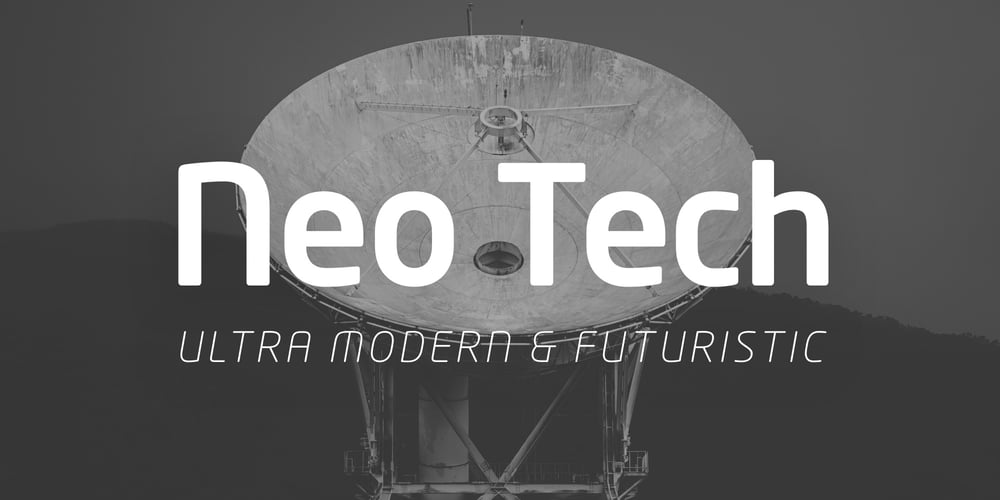
Neo Tech Font Family was designed by Sebastian Lester and published by Monotype. Neo Tech contains 12 styles and family package options. Neo Sans began as an intriguing assignment from a branding agency. The agency’s client wanted an “ultra modern” type family that was “futuristic without being gimmicky or ephemeral.” When a bureaucratic decision cancelled the project, Monotype staff designer Sebastian Lester decided to finish the design on his own. “I was left with a sketchbook full of ideas,” he said, “and thought it would be a shame not to see what came of them.” Lester decided that the principal ingredient of an “ultra modern” typeface was simplicity of character structure: a carefully drawn, monoline form, open letter shapes and smooth, strong curves. By further amplifying these qualities, he crossed the line from modern to futuristic. Two highly functional and versatile typefaces emerged. These are Neo Sans and Neo Tech, designs Lester describes as “legible without being neutral, nuanced without being fussy, and expressive without being distracting.” Both the Neo Sans and the more minimalist Neo Tech families are available in six weights, ranging from Light to Ultra, with companion italics. Neo Tech offers a suite of alternate characters.